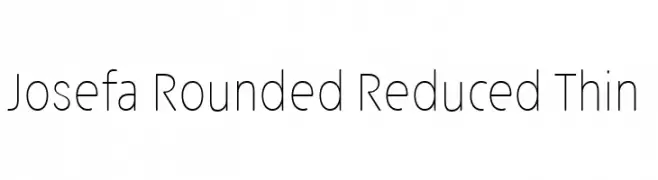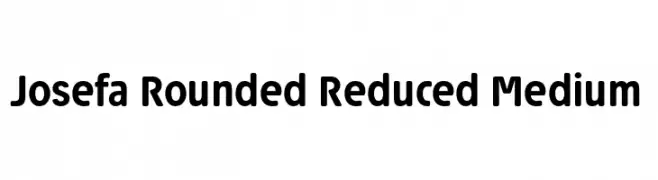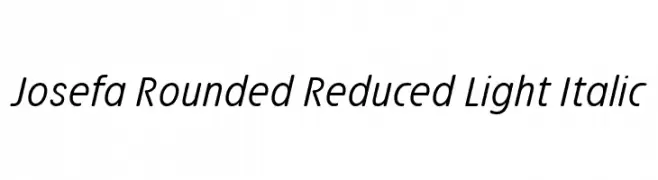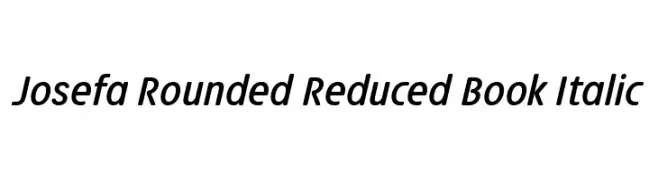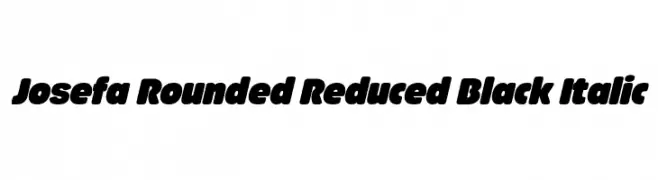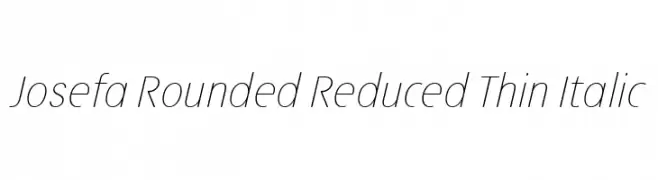
A modern, thin, rounded font with a clean and minimalist design.
A modern, rounded typeface with smooth curves and a friendly appearance.
A modern, rounded, light italic font with smooth curves and clean lines.
A modern, rounded italic font with a smooth and clean appearance.
A rounded, medium-weight italic font with a friendly and modern style.
A modern, rounded font with a clean and approachable design.
A bold, rounded, and italic font with a playful and dynamic style.
A sleek, modern, rounded, thin italic font with a refined aesthetic.
A bold, rounded, and italic typeface with a friendly and dynamic style.
A bold, rounded font with smooth curves and a playful, modern aesthetic.